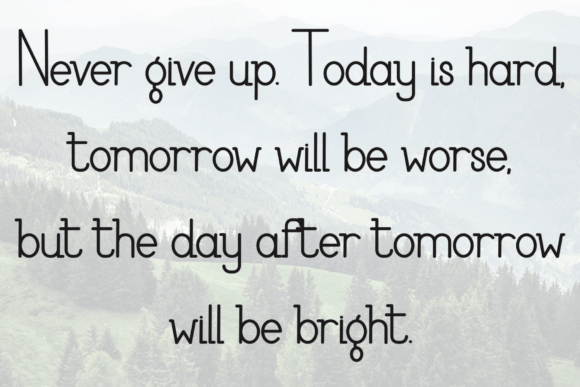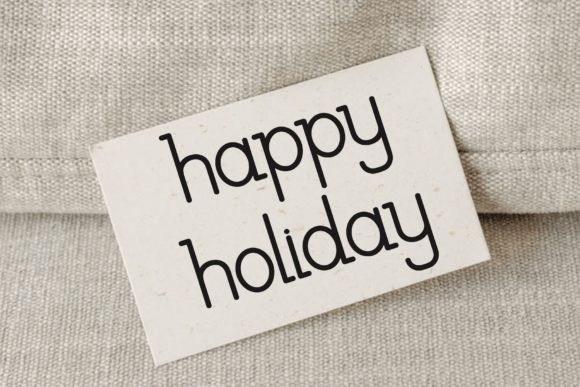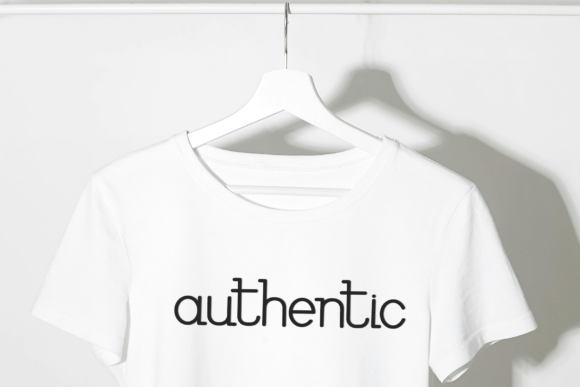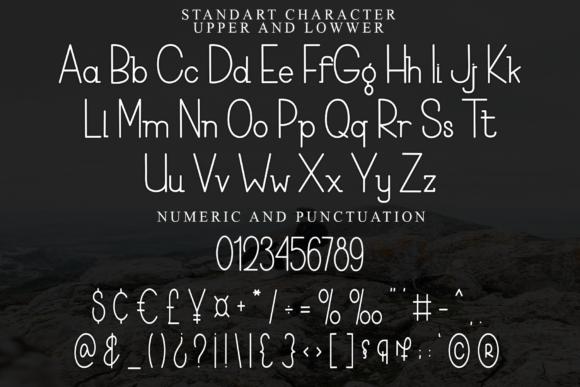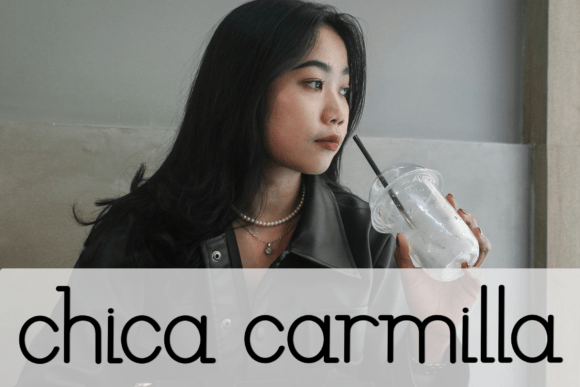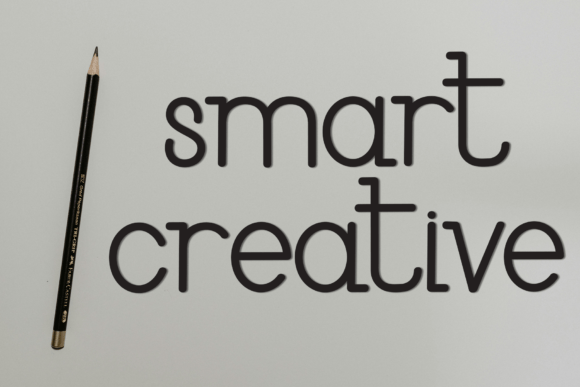
Introduction to Chicken Hawk Font
Chicken Hawk is a sleek and minimalist display font designed for a professional, contemporary presence.
This modern typeface sans-serif font style features vertically elongated letterforms rendered with a fine monolinear weight and a stable vertical axis Its personality is defined by an organized horizontal rhythm and wide character geometry that create an approachable and warm visual flow.